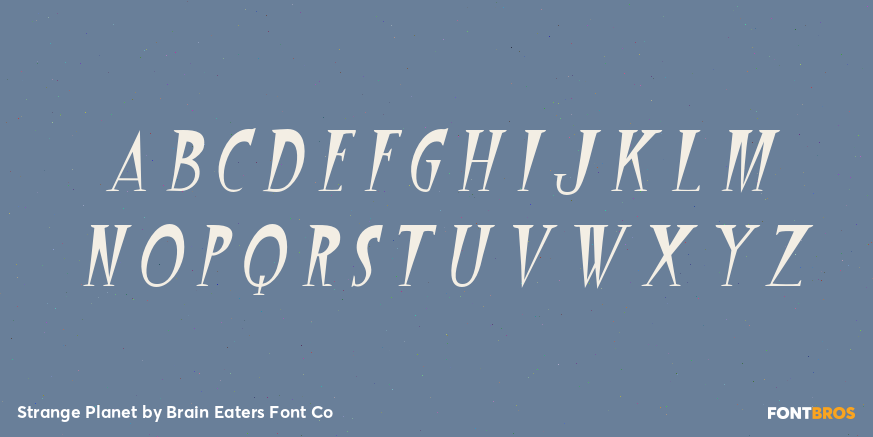
Strange Planet
Strange Planet is a retro display family with a distinctly groovy, era-driven look that pulls from 1940s through 1970s visual culture. Its letterforms feel bold, playful, and slightly offbeat, giving headlines and short phrases an unmistakable vintage personality.
With Regular, Oblique, Bold, and Bold Oblique styles included, this 4-font family gives you a flexible set for eye-catching poster work, logos, packaging, signage, apparel graphics, and other decorative display uses. If you want a typeface that leans into nostalgic, funky energy without losing impact, this one brings plenty of character to the page.